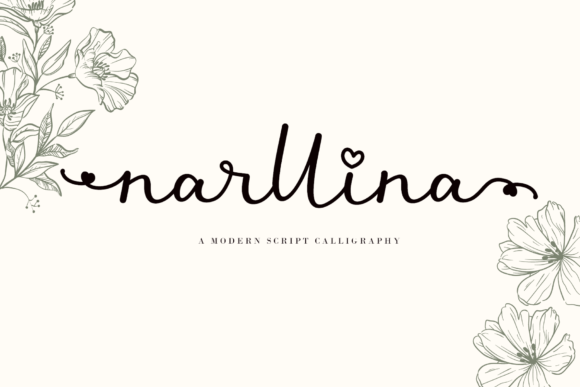
Prepare to be captivated by the enchanting Narllina Font, a resplendent creation from AEN Creative Studio. This script font exudes a romantic aura, promising to elevate your designs with a touch of elegance. Dive into a world of creative possibilities, where Narllina's graceful strokes and delicate curves add a luxurious spark to every project you undertake.
With Narllina, your wedding invitations will transform into exquisite works of art. Its romantic vibe sets the perfect tone for your special day, adding a touch of sophistication and charm to every detail. Let the flowing lines of Narllina guide your guests on a journey of love and celebration.
But Narllina's charm extends far beyond wedding invitations. Unleash your creativity and explore its versatility in branding, logos, social media graphics, posters, and more. Its elegant curves and timeless style lend a touch of sophistication to any project, captivating your audience with its undeniable beauty.
Narllina's PUA encoding unlocks a treasure trove of glyphs and ligatures, accessible with ease. Experiment with a symphony of swashes, alternates, and stylistic sets, adding depth and dimension to your designs. Let your imagination soar as you craft captivating headlines, stunning logos, and enchanting social media posts.
Embark on a creative adventure with Narllina Font, and witness the transformation of your designs into masterpieces. Its romantic elegance and versatility will leave a lasting impression on your audience, making your projects shine with an unforgettable allure. Embrace the beauty of Narllina and elevate your designs to new heights of sophistication and grace.